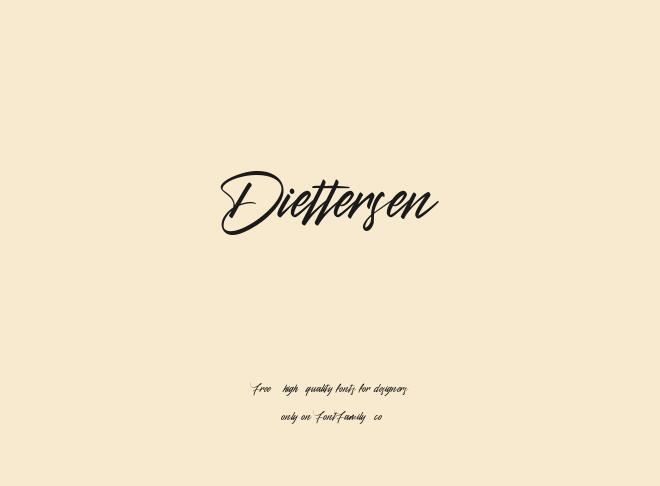
Diettersen Font
The Diettersen Font is a modern, handwritten typeface that exudes an elegant charm. This exquisite font, designed by Diettersen Foundry in 2018, is a perfect blend of sophistication and simplicity, making it an ideal choice for a wide range of design projects. The font's unique character set, with its clean, fluid strokes, gives a personal touch that enhances the overall aesthetics. It's a great alternative to fonts like Papyrus and Comic Sans, offering a more refined and polished look. Its versatility makes it suitable for logo designs, wedding invitations, branding, website headers, and more. The Diettersen Font, with its Open Font License, is free to use, making it an excellent resource for both novice and experienced designers seeking to add a touch of elegance to their work.